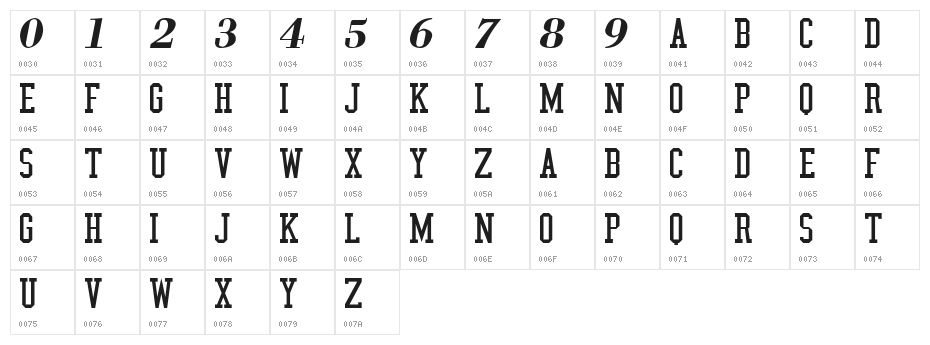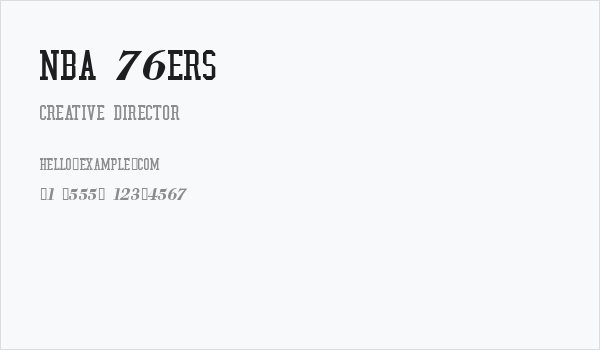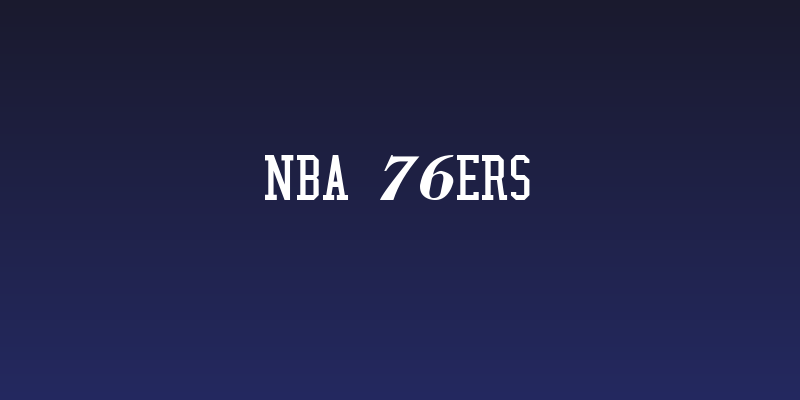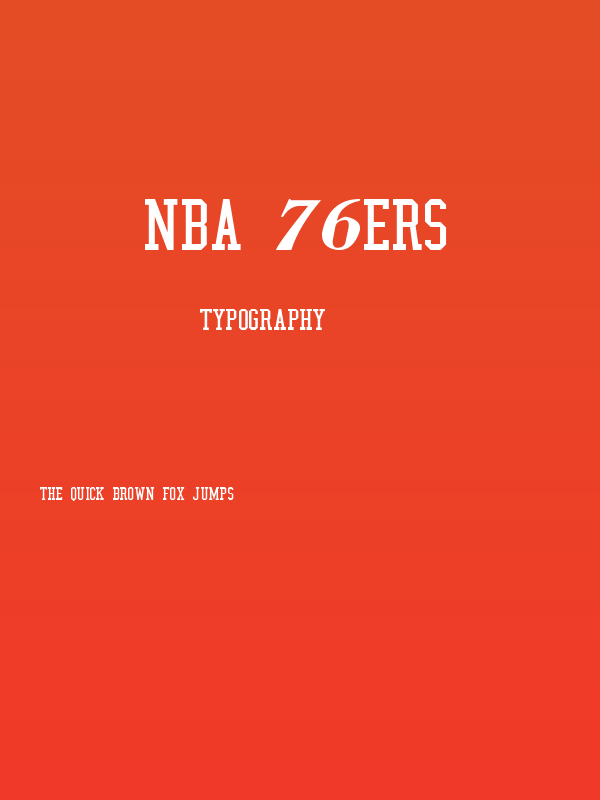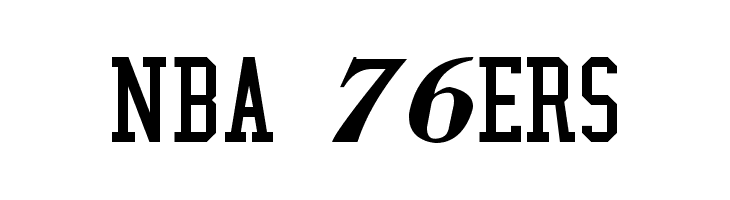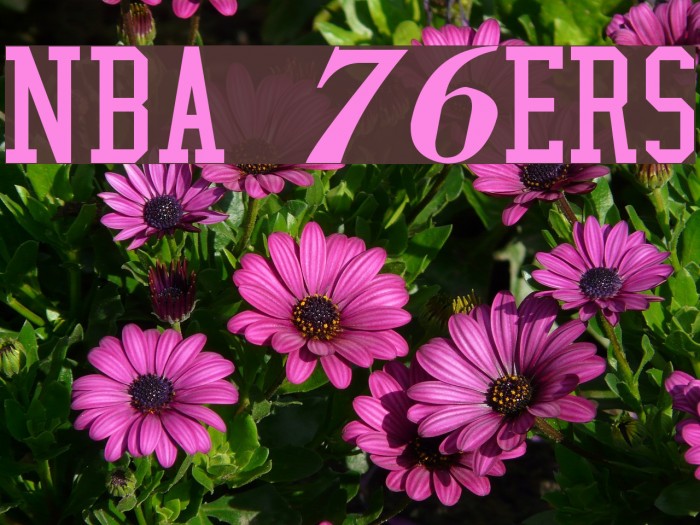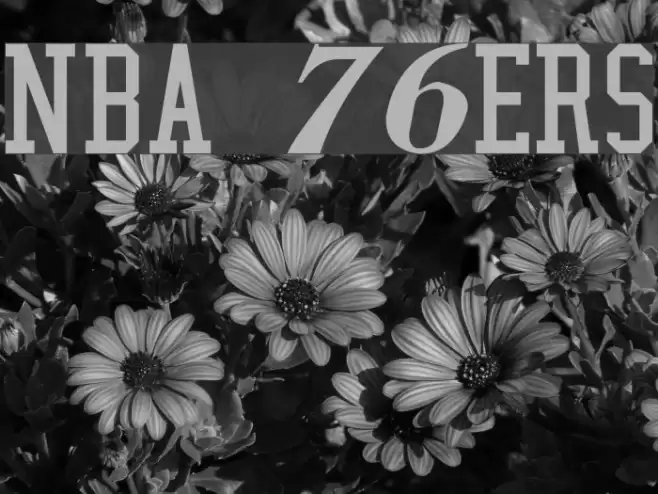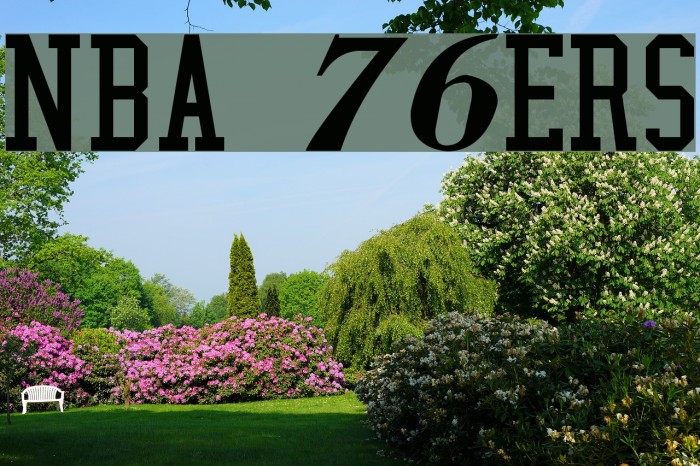
NBA 76ers Font
NBA 76ers Description
This font features a bold and impactful design, characterized by strong, angular serifs and a robust structure. The uppercase letters are tall and commanding, with a slight vintage flair that adds a touch of elegance. The lowercase letters maintain the same boldness, ensuring consistency across the typeface. The numerals are slightly italicized, adding a dynamic element to the overall design. The special characters are designed to match the boldness and style of the letters, making this font versatile for various uses.
| Overall Style | Vintage |
| Proposed Projects | Ideal for sports branding, posters, and headlines where a strong, impactful presence is needed. |